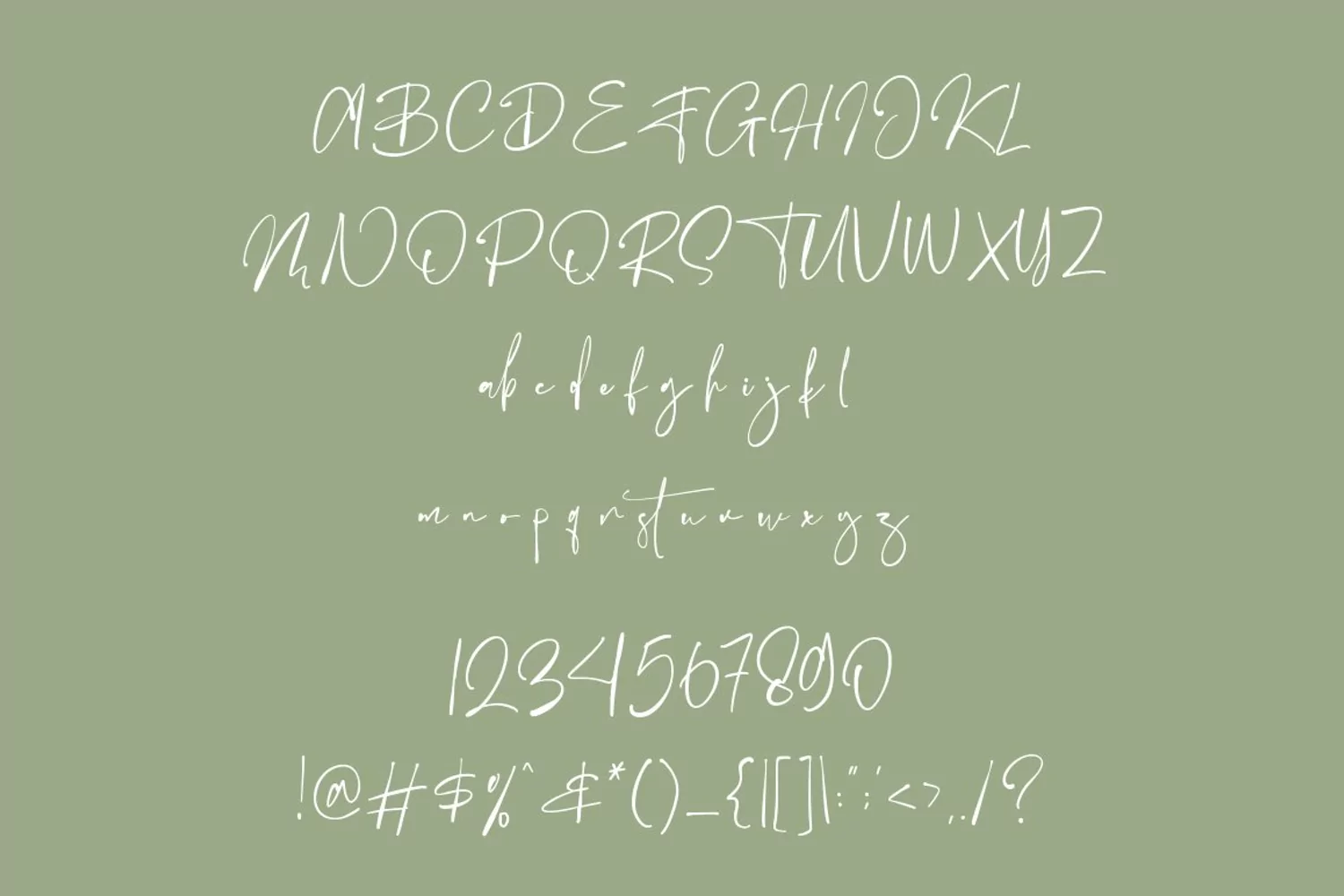
Introducing to Ballison Signature Font
Ballison is signature font script, ideal for use in projects that need an organic and natural style. This font is great for logo, logotype, branding,wedding, fashion, book cover, instagram post, and other, and can add an elegant and classy look to your work.